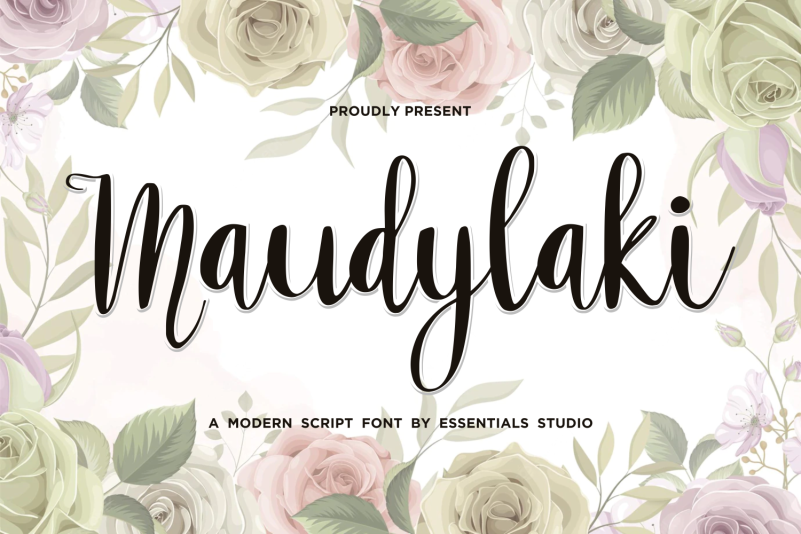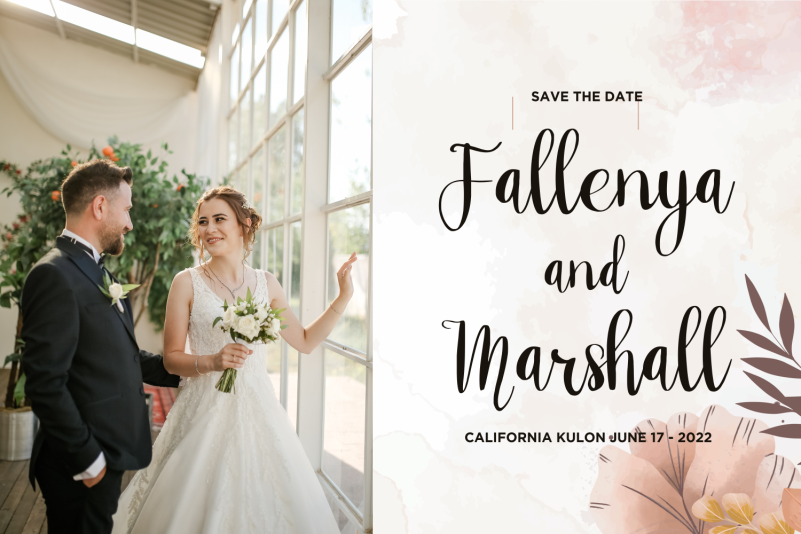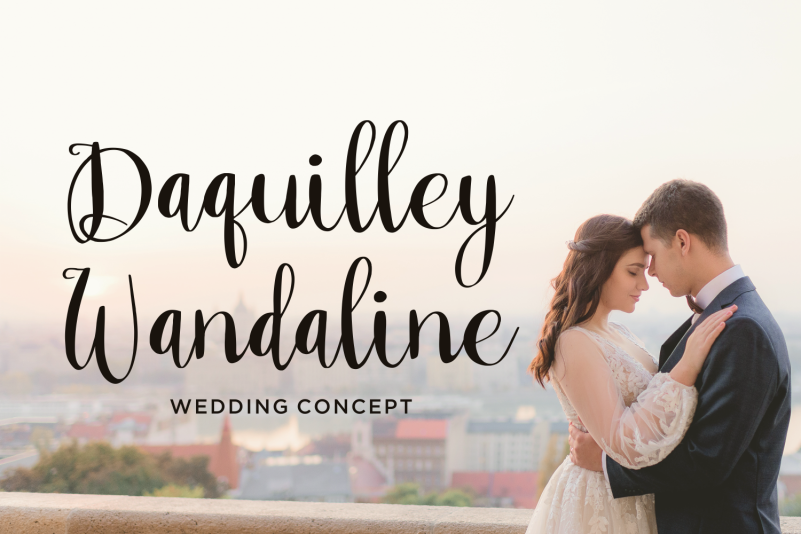
Maudylaki Font
Maudylaki Font Is a A Modern Handwritten Font. Maudylaki is perfect for product packaging, branding project, megazine, social media, wedding, or just used to express words above the background.
Designer Name: Essentials studio